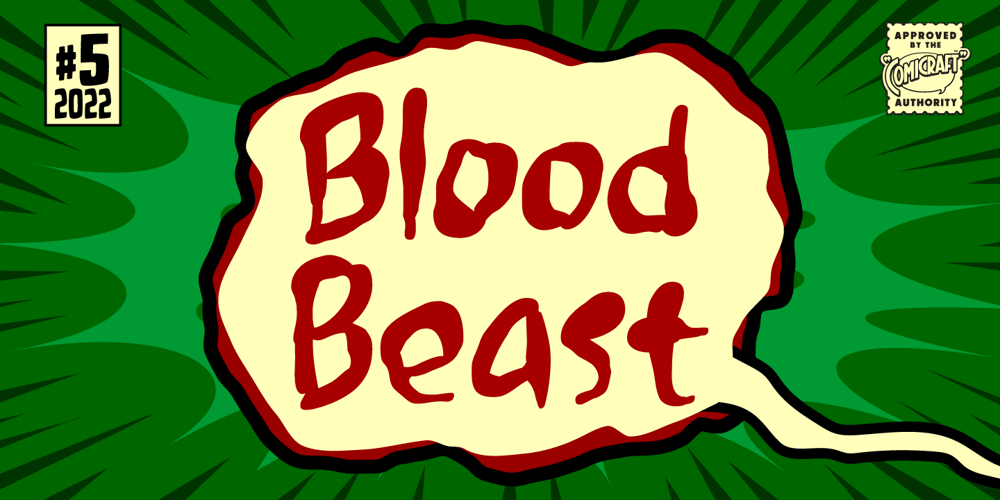
Blood Beast Font Family was designed by John Roshell and published by Comicraft. Blood Beast contains 3 styles and family package options. Darkness Falls… beware the Moon and stick to the road. Keep clear of the moors, for there you will only find a bloody, UNNATURAL death. Tonight, as every night there is a Full Moon, the Blood Beast stalks the village. It is ready to catch the unwary one, the show-off, the FOOL! It walks the Earth in limbo from one month to the next and only one who is loving in spirit can bring an end to its Carnivorous Lunar Activities!